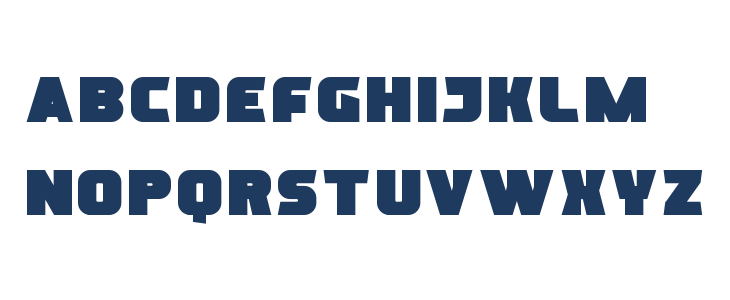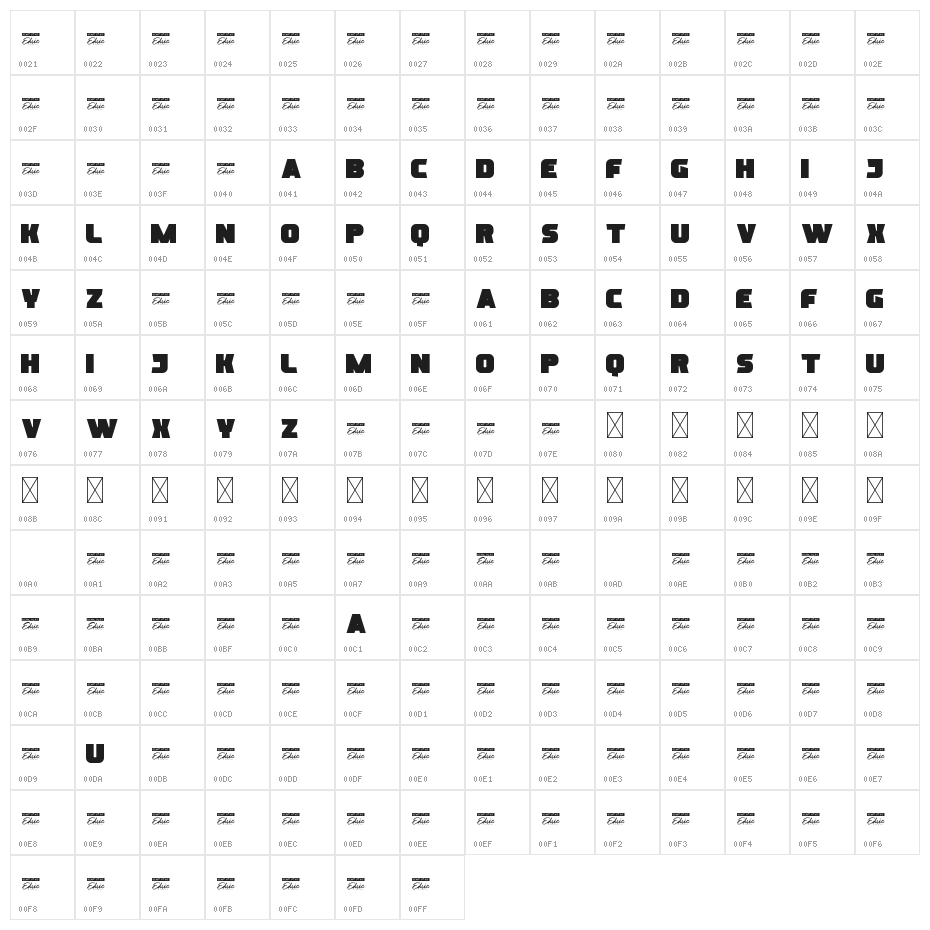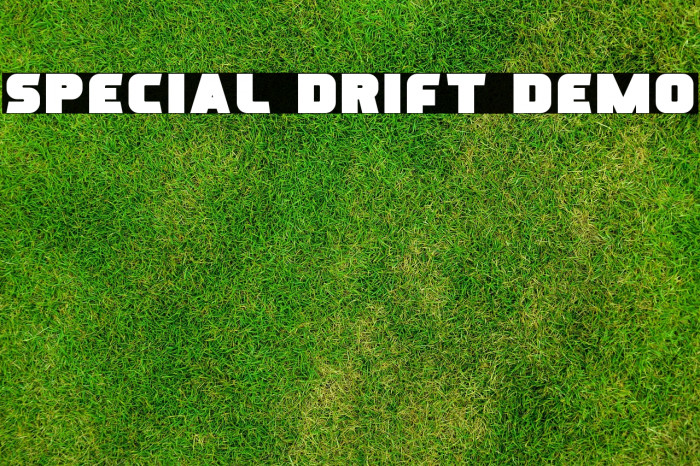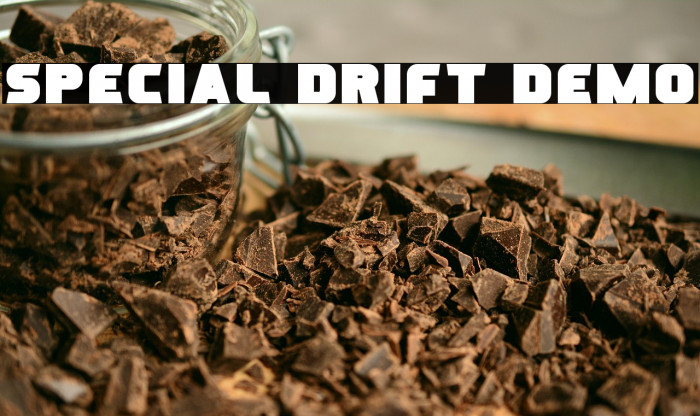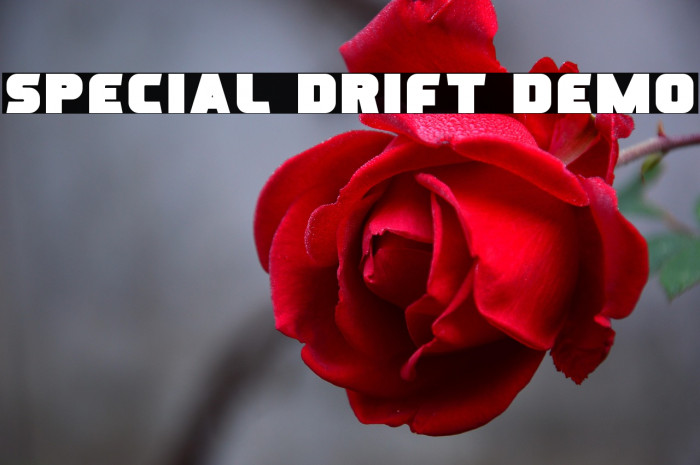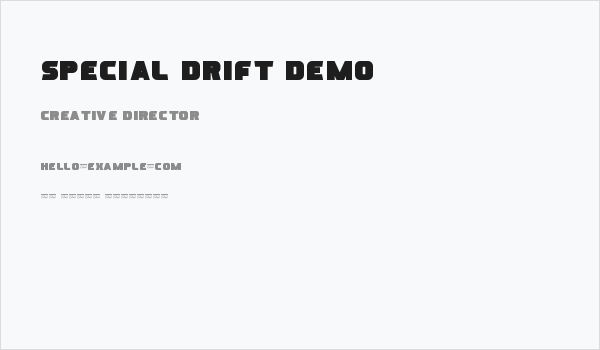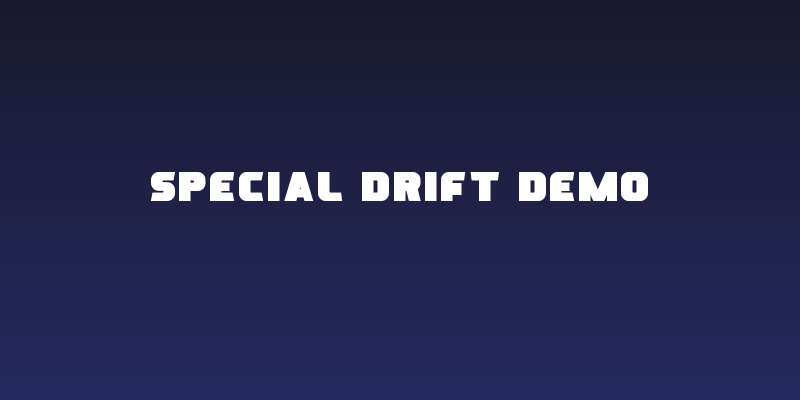
Special Drift Demo Font
Special Drift Demo Description
Bold, blocky, sans-serif font with a strong, geometric appearance.
| Overall Style | Modern, Bold, Geometric |